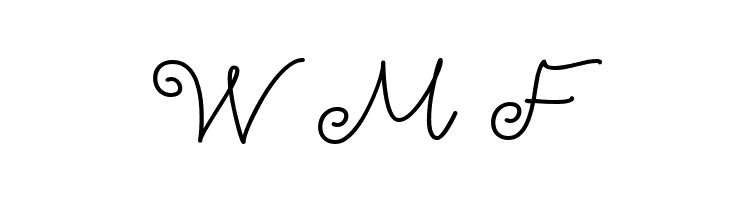
AnythingIsPossible Font
A playful, casual handwritten font with an organic flow and irregular strokes.
Make Anything Font
A whimsical script font with flowing, interconnected letters and decorative loops.
Bellhuy vol 01 Font
A playful, hand-drawn font with dynamic strokes and a whimsical style.
Anything For You Font